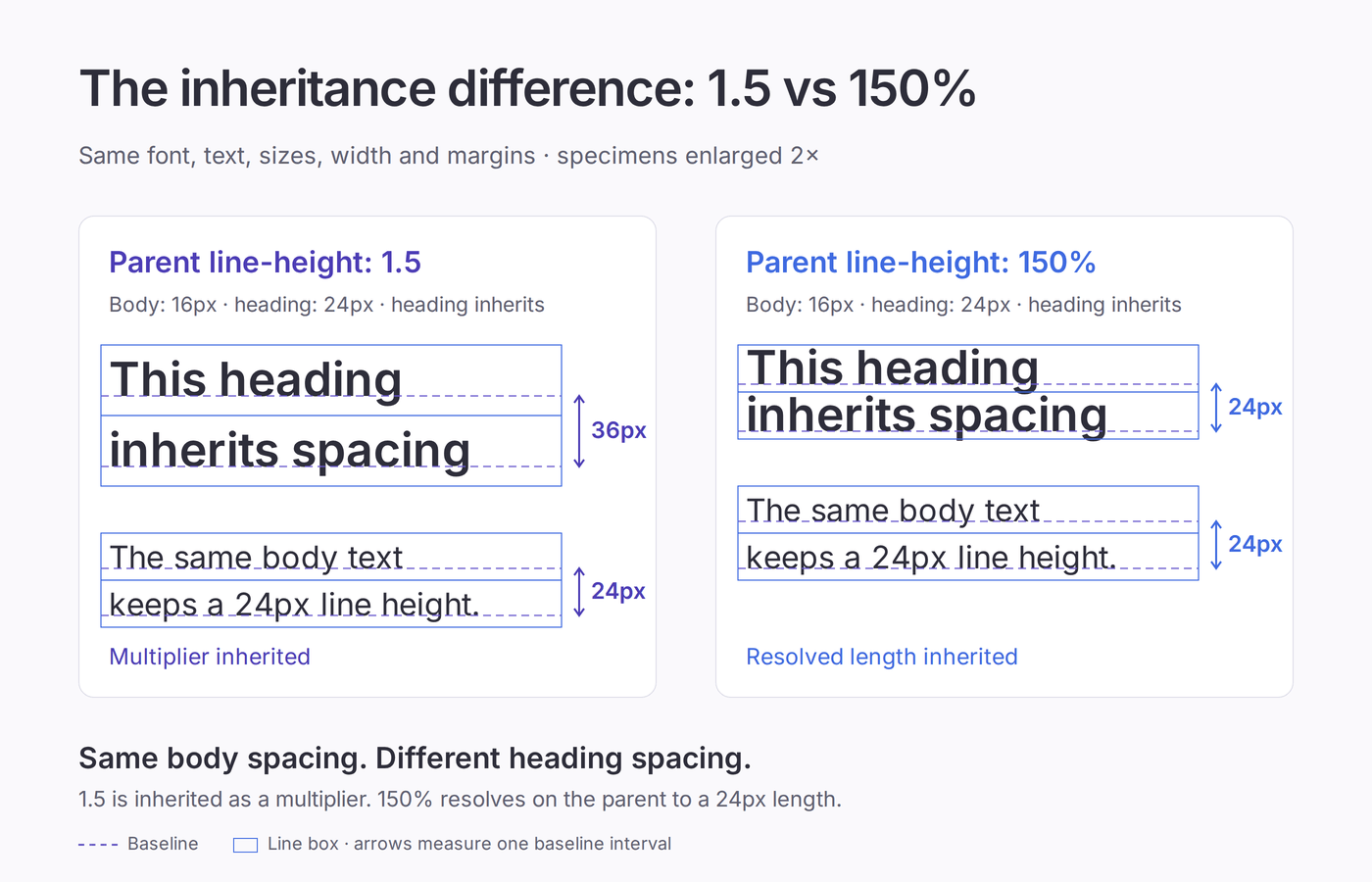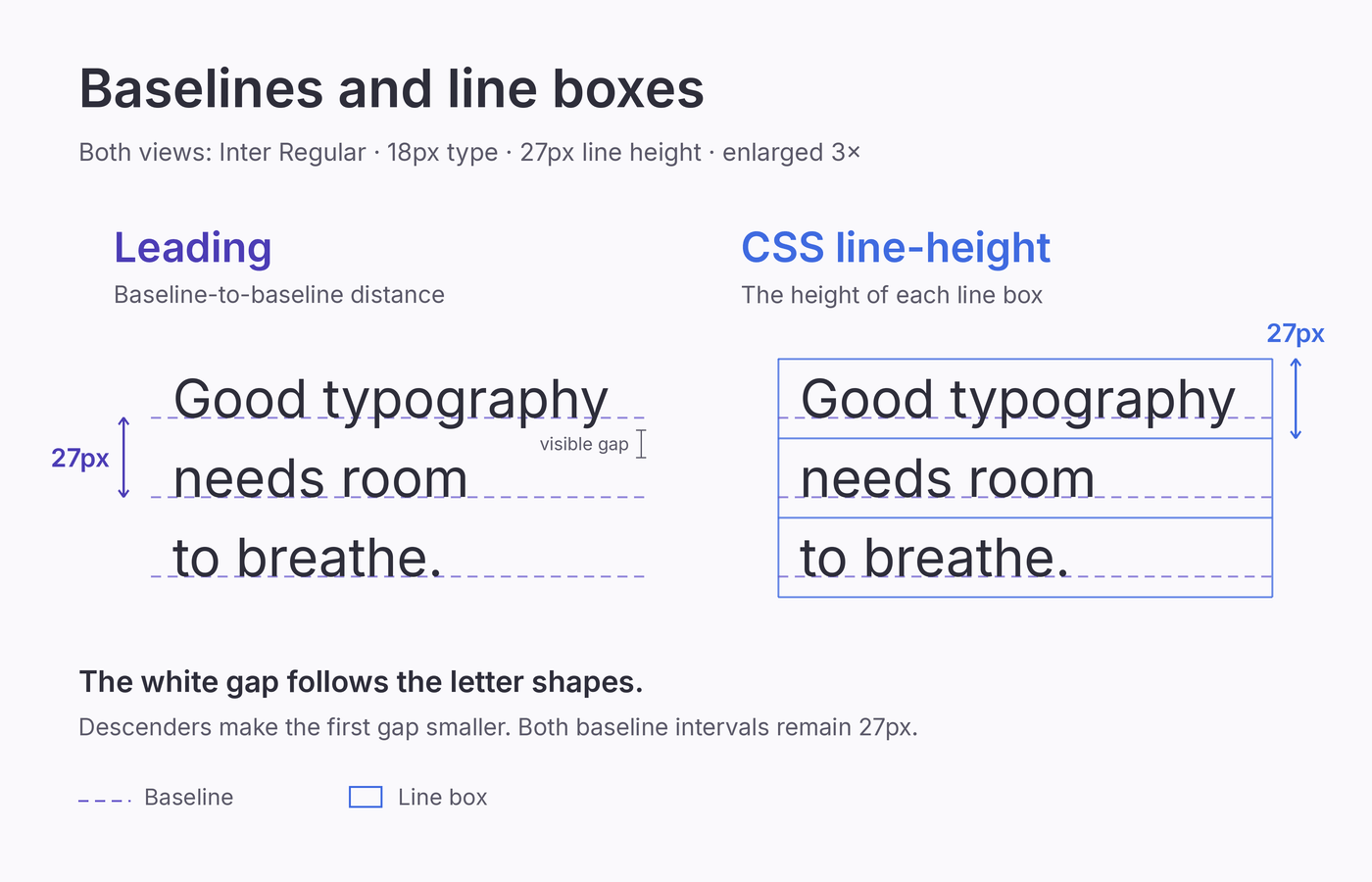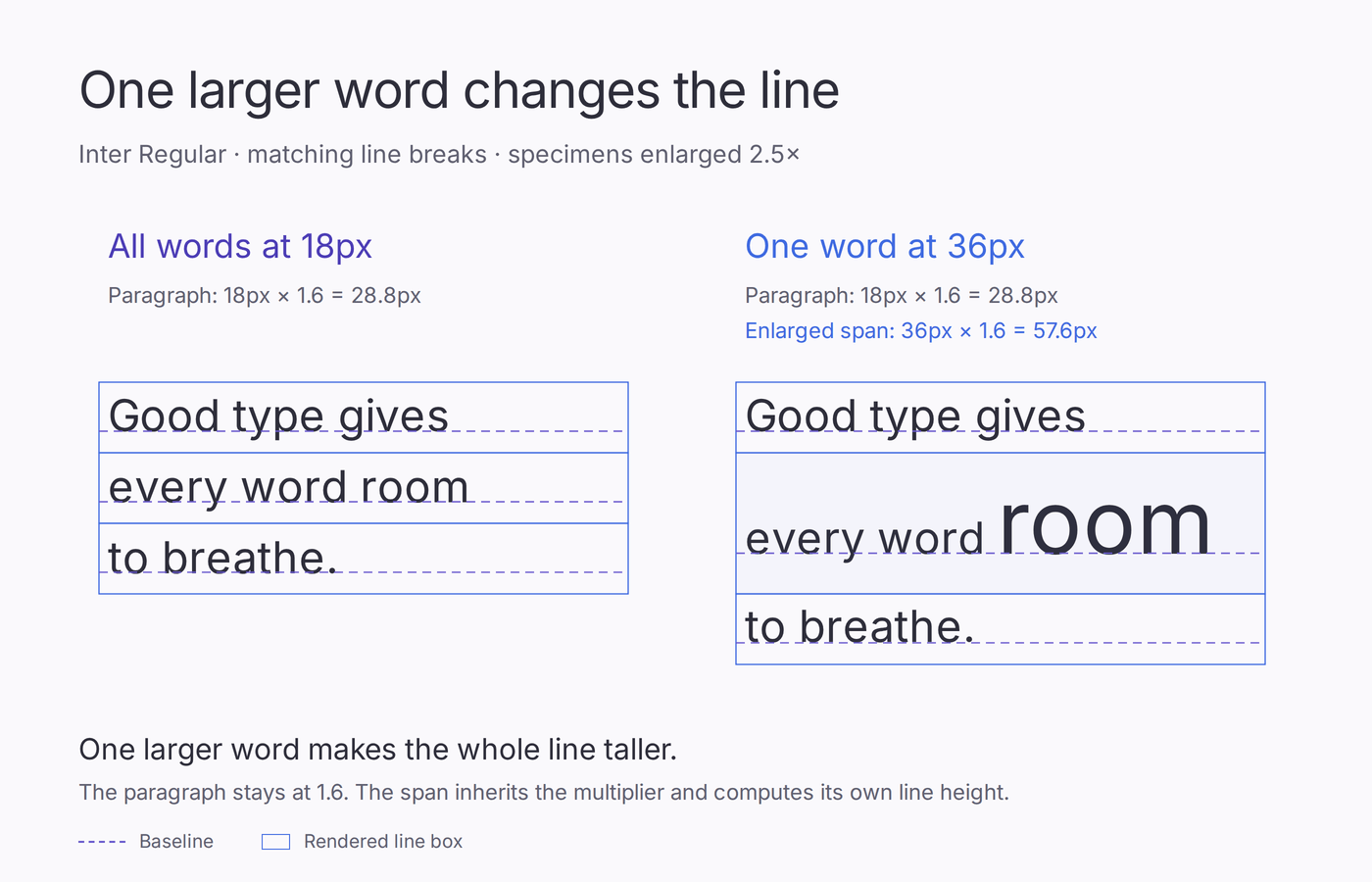
Leading vs Line Height: Get Your Text Spacing Right
Leading vs line height: learn the difference, translate design spacing into CSS, and fix common spacing mistakes in headings, paragraphs, & inherited styles.
Identical Inter text with purple baseline guides for leading and blue line-box outlines for CSS line height.
Leading vs line height can seem like a naming dispute until you move a paragraph from a design file into a browser. You copy the spacing value, yet the text looks tighter than expected.
In modern layout software, leading usually means the distance from one line’s baseline to the next. CSS line-height controls the sizing of line boxes, the invisible boxes a browser uses to arrange lines of text. In a plain paragraph with consistent font settings, its value normally determines baseline spacing too.
Use the leading control in your layout app and line-height when implementing spacing on a website. Neither directly measures the visible white gap between letters; the font’s shapes affect how spacious the text looks.
What Is Leading?
In layout software such as InDesign, leading measures the vertical distance between consecutive text baselines. The baseline is the invisible line most letters sit on.
A designer might write 12/18 to specify 12-point type with 18-point leading. The first number is the type size; the second is the full interval between baselines.
The name comes from traditional typesetting, where printers inserted strips of lead between rows of metal type. Historically, leading referred to the added spacing.
Modern design apps commonly use the word for the total baseline-to-baseline distance, so check which meaning an older typography reference uses.
What Is Line Height in CSS?
line-height controls the vertical sizing of line boxes. Each line box accommodates the text and other inline content on that line.
In a simple paragraph with consistent font settings, the specified line height normally determines the interval between successive baselines. Larger inline text, images, or vertical alignment can increase the space a particular line needs.
The property accepts unitless multipliers, lengths, percentages, and the keyword normal. A unitless value relates the line height to the element’s font size. A fixed pixel value specifies a length that stays fixed as that font size changes.
Letter proportions, including ascenders and descenders, affect the white gap you actually see. Two fonts can share a line-height value and still make a paragraph look noticeably different.
Side-by-Side Comparison
Here’s how a modern leading setting and CSS line-height compare in everyday work.
DetailLeading in layout softwareCSS line-height
Main measurementDistance between consecutive baselinesSizing of line boxes; normally sets baseline spacing in uniform text
Where you set itTypography controls or text styles in a design appCSS rules applied to text elements
Common formatsPoints, plus automatic or percentage settings depending on the appUnitless multipliers, lengths, percentages, or normal
Example12pt type with 18pt leading18px type with line-height: 1.5, giving a specified line height of 27px
When font size changesFixed leading stays fixed; automatic leading can adjustUnitless values scale with the element’s font size; fixed pixel values stay fixed
What can affect the resultBaseline grids and other layout settingsLarger inline content and vertical alignment
The useful connection is the spacing ratio. For 12pt type with 18pt leading:
18 ÷ 12 = 1.5
A CSS value of line-height: 1.5 carries that proportion into the browser. It also lets you change the web text size without manually recalculating its line height.
Keep the units in view: 18pt leading and an 18px line height represent different lengths. Copying the number alone can substantially change the spacing. The ratio gives you a starting specification; the rendered paragraph shows whether it suits the layout.
Why the Difference Matters
A webpage’s typography system has to accommodate headings that wrap and readers who change the text size. Clear spacing specifications make those changes easier to manage.
Make the Design Handoff Precise
“Add 6px of leading” can mean 6px of additional spacing or a total baseline interval of 6px. That is quite a difference for a paragraph.
Specify the font family, weight, text size, and total line height, then state whether spacing stays fixed or scales with the text. Include paragraph spacing separately so the developer can reproduce both gaps.
Example handoff: Inter Regular, 18px; line-height: 1.5 (27px at this size); 1em between paragraphs. Keep the line-height ratio when the font size changes, and review the result in 320px and 640px text columns.
Choose How Spacing Scales
An inherited fixed line height can become too tight when a child element uses larger text. A unitless value lets each inheriting element calculate its line height from its own font size. That behavior matters in reusable components whose text sizes change at a breakpoint.
Bottom Line
For web styles that should scale with the text, start with a unitless line-height and choose heading and body values separately.
Before finalizing them, check a heading that wraps and a full paragraph at a narrow width. Also test spacing overrides so readers can adjust the text without losing content.